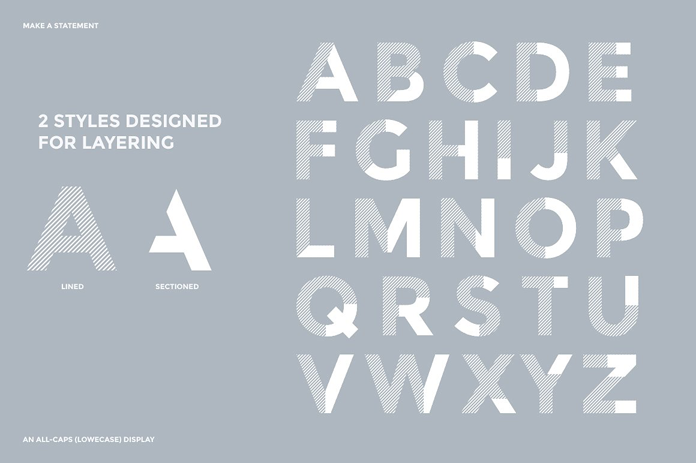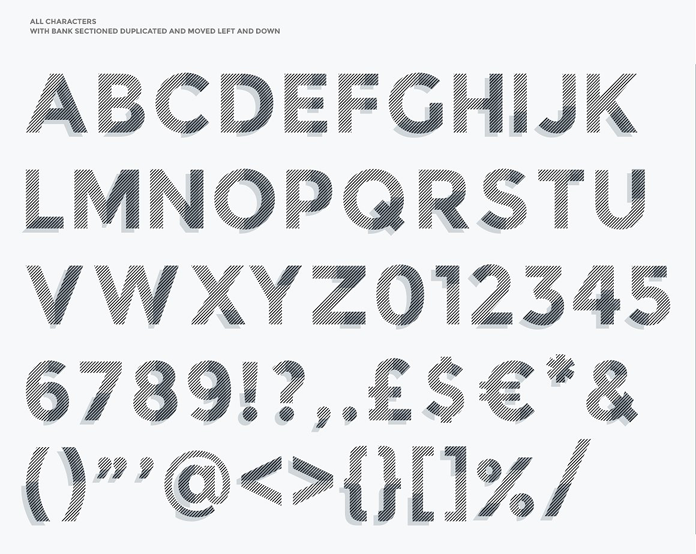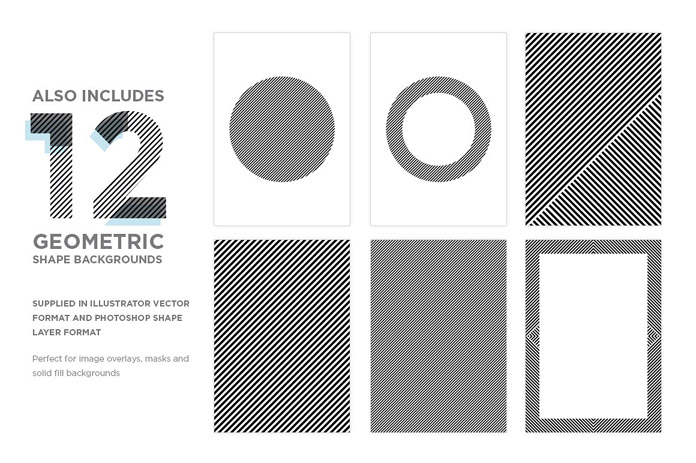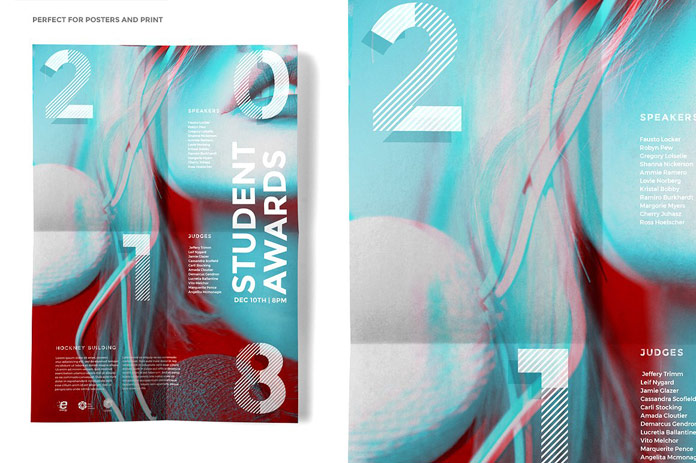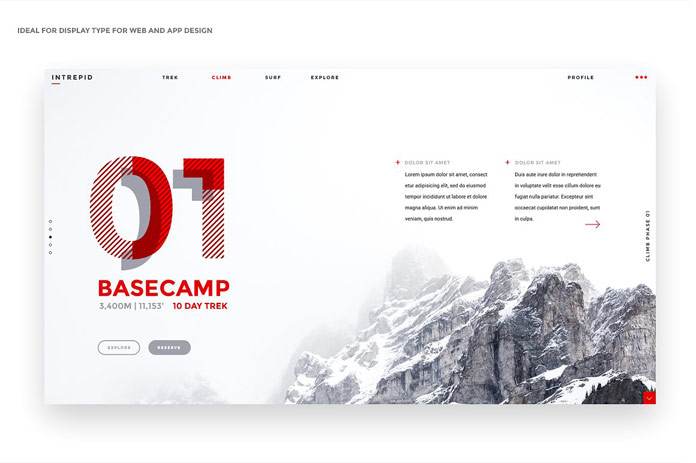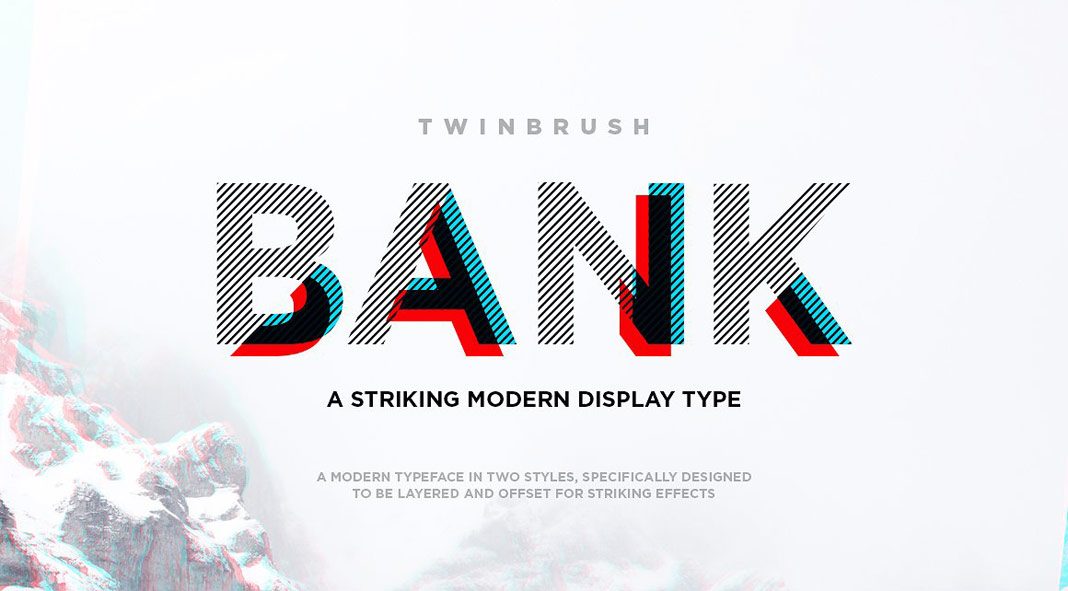
Bank, a modern, layered display typeface in two styles.
Designed and published by Rian Magee of Twinbrush Image Forge, Bank is an amazing typeface with unique layering options. This all-caps display font was made for modern design applications. It comes in two styles, lined and sectioned. These styles are made to layer on top of each other in order to create some nice typographic effects. You can use it with different colors and additional blending mode settings in order to create a great variety of possible outcomes. Whether print or on screen, this typeface is a great choice for branding projects, posters, websites, and mobile apps, just to name a few. As a little bonus, the set also includes a matching series of 12 geometric shape backgrounds. These patterns have been designed to compliment the angles of the Bank font. Please note, the backgrounds are included as Photoshop shape format and Illustrator vector format. You can get the latest versions of both applications from the Adobe Creative Cloud website, just check it out here.